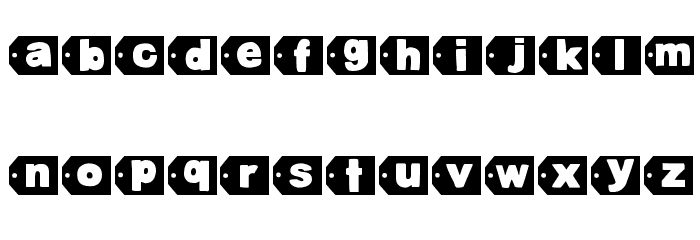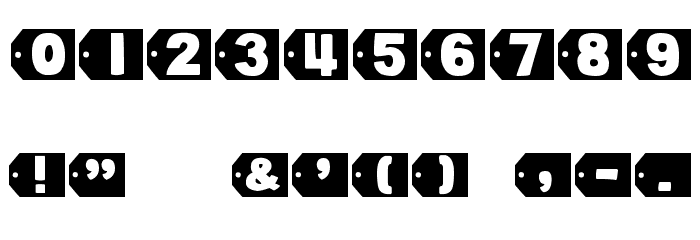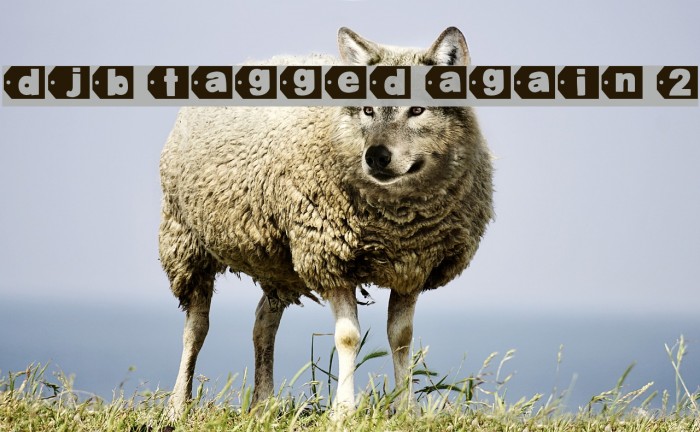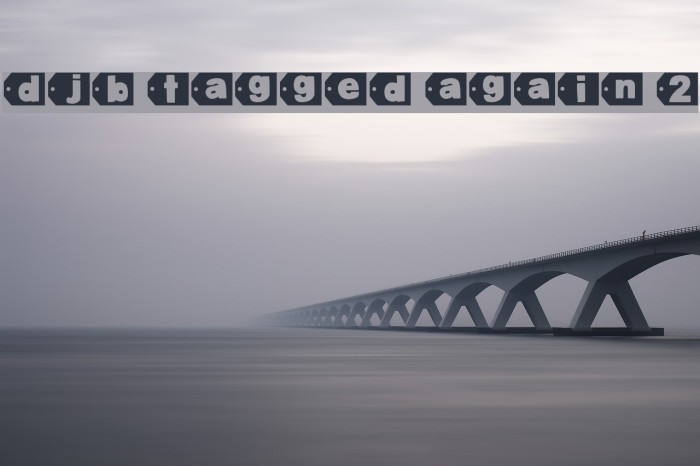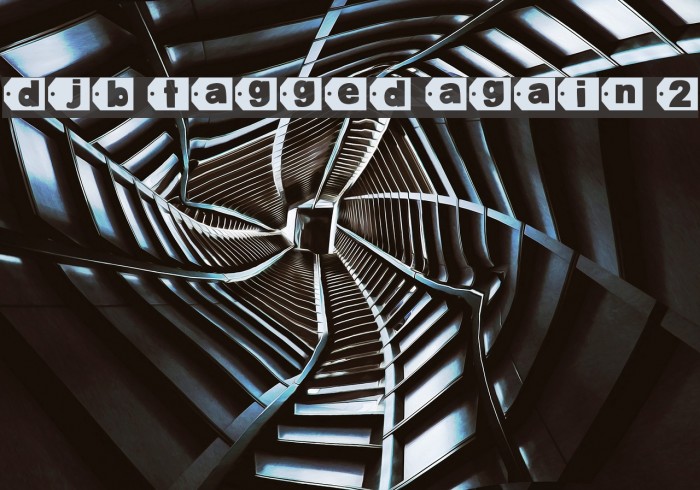
DJB Tagged Again 2 Font
This font features a bold, decorative style with each character enclosed in a tag-like shape. The letters are uppercase and lowercase, with numbers and a selection of special characters. The design is playful and eye-catching, making it ideal for projects that require a standout typeface. The characters are evenly spaced within their tags, providing a consistent and structured appearance. The boldness of the font ensures high visibility, while the unique tag design adds a touch of creativity and fun.
A bold, decorative font with characters enclosed in tag-like shapes.
- Font: DJB Tagged Again 2
- Proposed Projects: Ideal for creative projects such as posters, event invitations, children's books, and branding materials that require a playful and distinctive look.